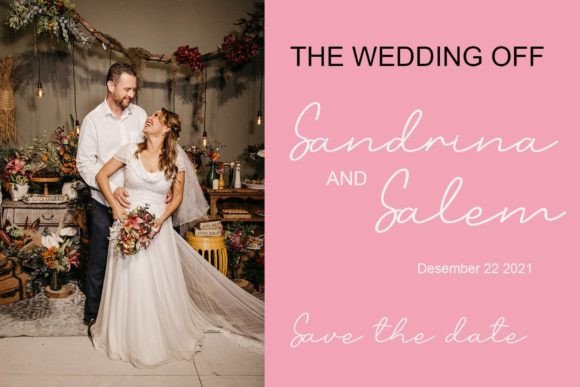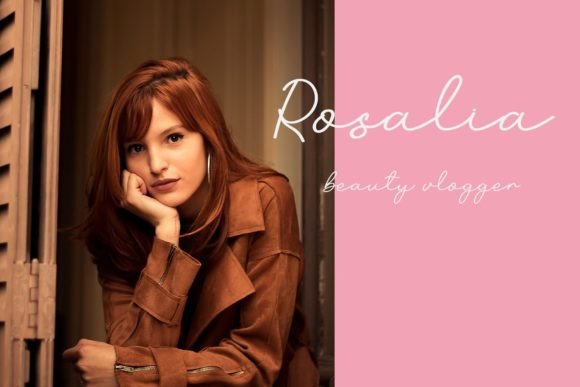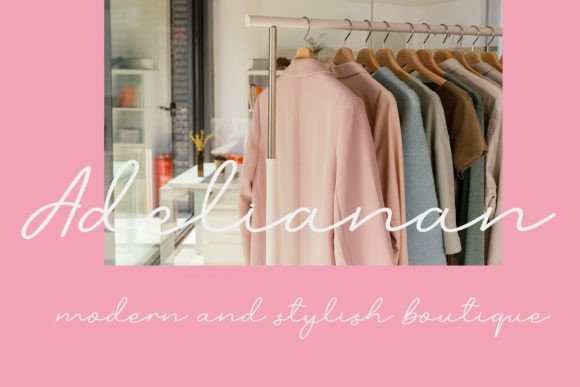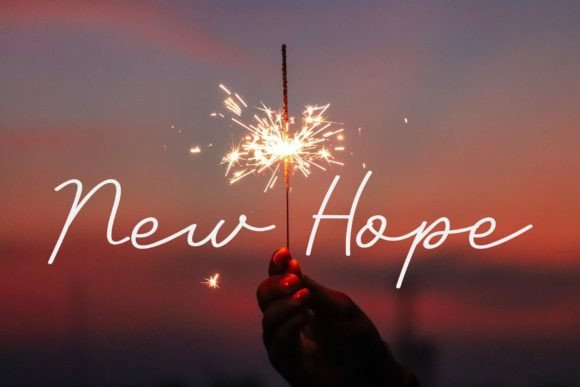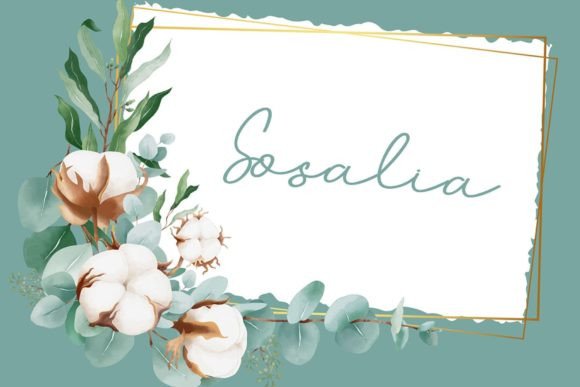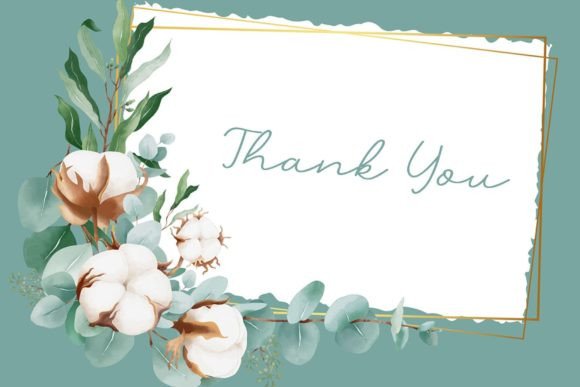
South America Font
About South America Font
“South America” is a delightful handwritten font that radiates sweetness and beauty. With characters that gracefully dance along the baseline, this font adds a touch of luxury and sophistication to any design project it graces. Its unique and stylish appearance makes it a perfect choice for a wide range of creative applications, infusing your designs with a sense of charm and elegance.
The font’s handwritten charm gives your text a personal and intimate feel, creating a sense of warmth and authenticity. Its flowing and elegant letterforms add a touch of creativity and artistry, making it ideal for projects that require a luxurious and refined look. Whether you’re designing wedding invitations, branding materials, quotes, greeting cards, or any other creative piece, “South America” enhances the visual appeal of your text, making it visually captivating.
One of the standout features of “South America” is its ability to evoke a sense of luxury. The characters are carefully crafted, giving them a sophisticated and upscale look. The font’s handwritten style adds a touch of exclusivity, making it suitable for high-end branding, fashion-related projects, upscale events, and luxurious products. “South America” transforms ordinary text into an opulent and glamorous experience, making your designs truly stand out.
Embrace the sweetness and beauty of “South America” and let it add a touch of luxury to your creative projects. Its elegant and graceful style makes it a perfect choice for designs that demand sophistication and creativity. Whether used in print or digital media, “South America” elevates your projects, infusing them with a sense of opulence and style. With “South America,” you can confidently create designs that exude luxury and elegance, leaving a lasting impression on anyone who experiences your work.